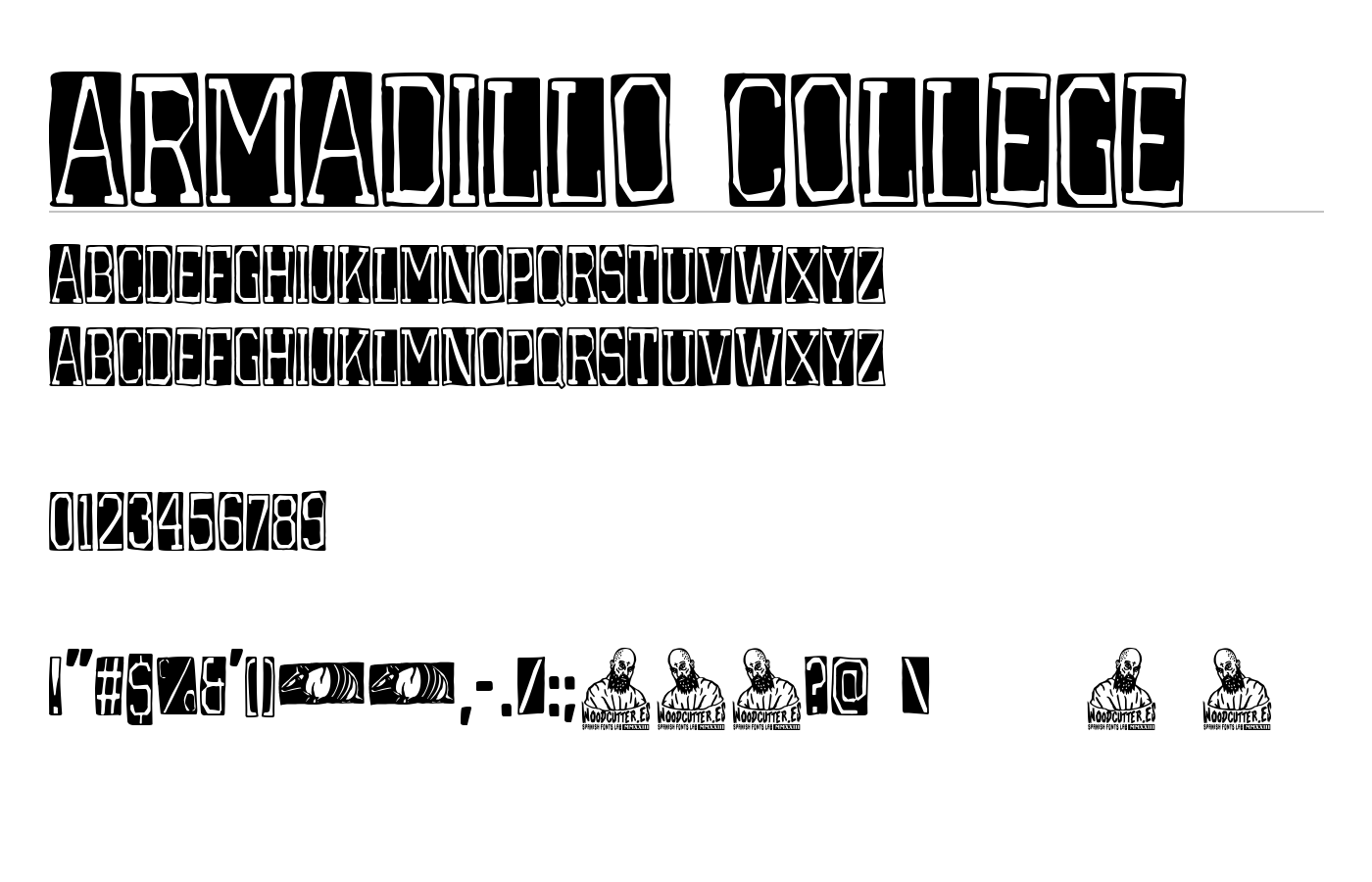
Armadillo College is a bold, condensed slab serif font that combines a vintage collegiate vibe with a playful, hand-crafted feel. Its strong, blocky letterforms with uneven edges and a slightly distressed texture give it character and a sense of authenticity, making it perfect for designs that want to evoke nostalgia while remaining visually striking. This font works wonderfully for posters, logos, packaging, and headlines where a distinctive, spirited presence is needed.
Armadillo College Font
About Armadillo College Font